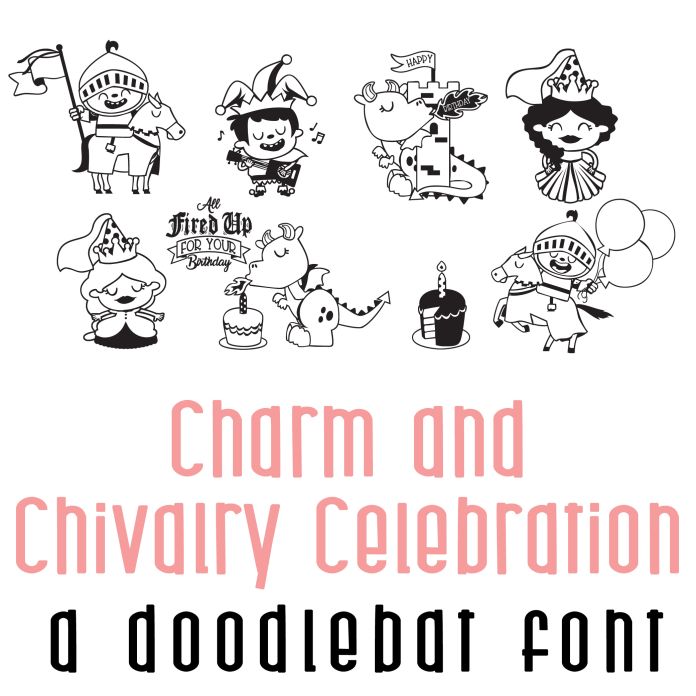
This adorable doodlebat font features 26 royal imagery of princesses, dragons, knights and more all celebrating! Perfect for cards, crafts, gifts, planner stickers, scrap book pages, decor, parties, classrooms and more!